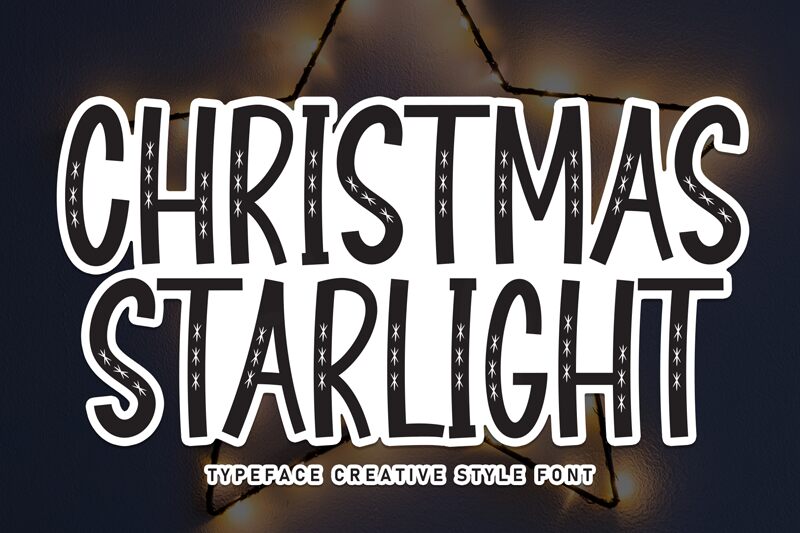
Christmas Starlight font by Scratchones is a lively decorative font. Thoughtful of modern design, its imaginative shape draws attention and interest at first sight. Featuring a seductive handwritten design, the whimsical font has decorative ornaments that add an element of festivity and exclamatory tone to text.
Homesick is the ultimate typeface for joyful projects, holiday themes, or designs related to the new year, Halloween, Easter, and Thanksgiving. Logos, invitations, posters, classroom diagrams, and so much more can be more dynamic by using this font.